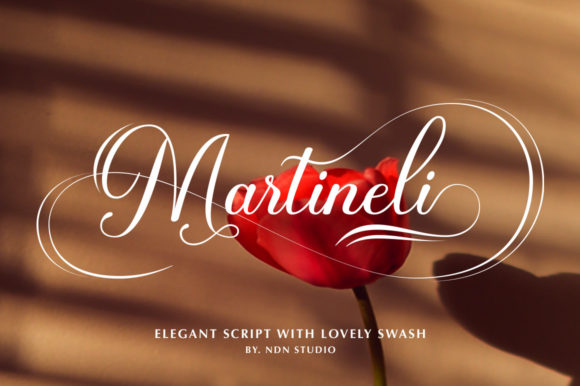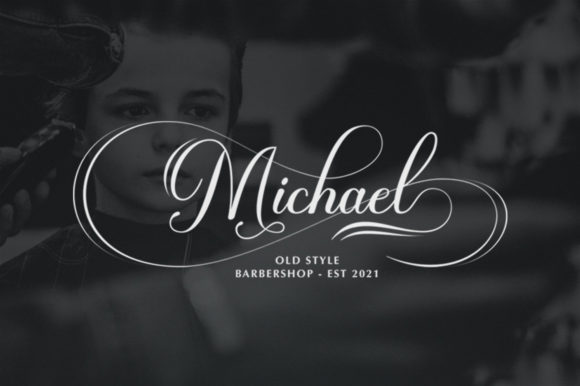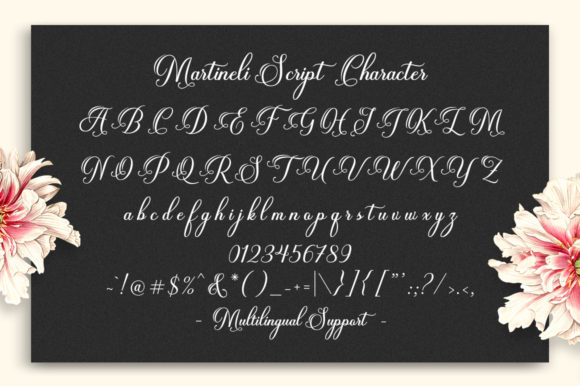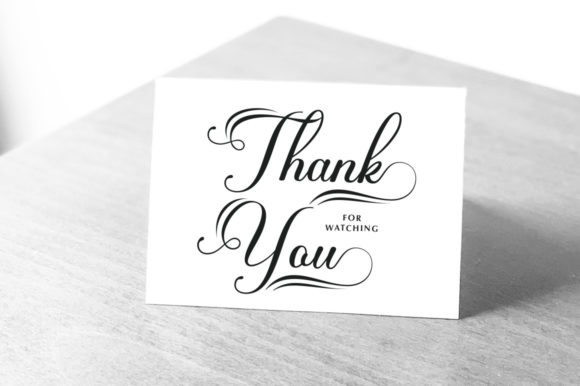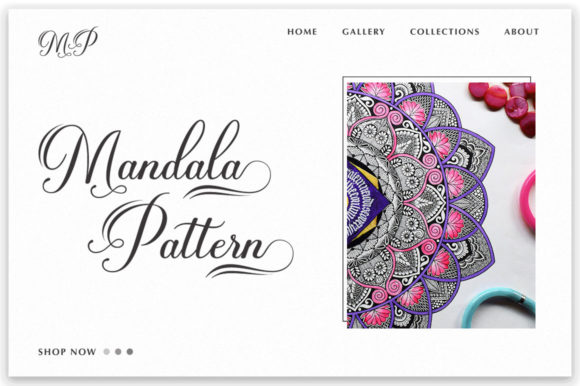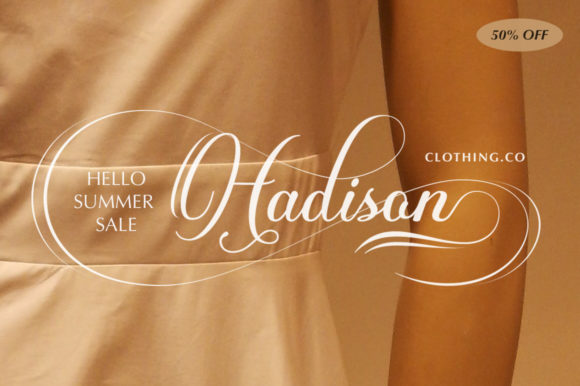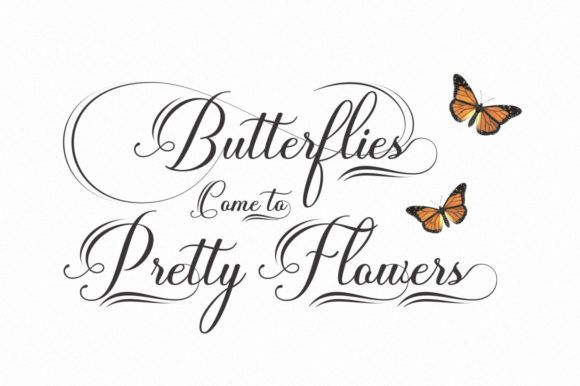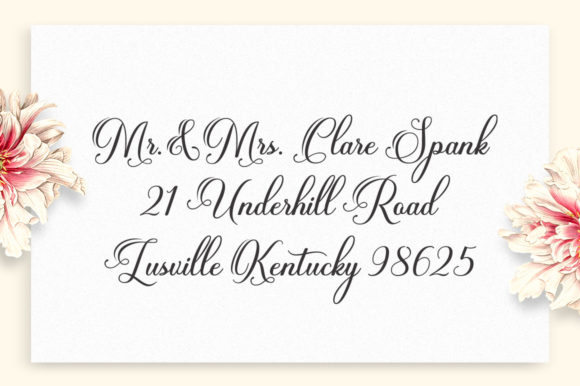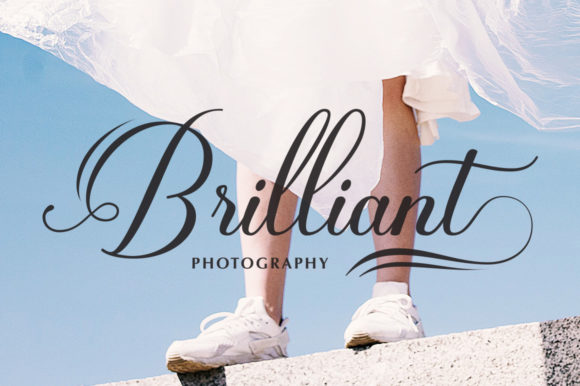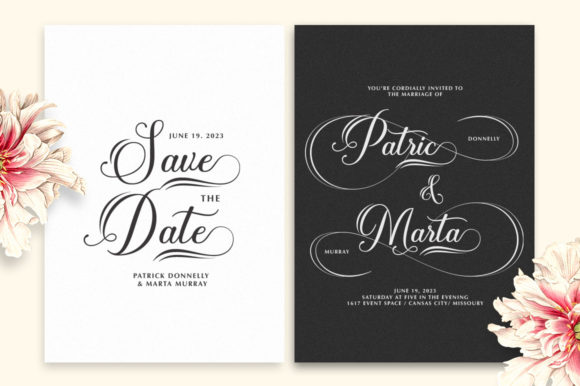
Martineli Script Font
About Martineli Script Font
Martineli Script is a lovely script font featuring charming, playful characters that seem to dance along the baseline. Add this font to your most creative ideas, and notice how it makes them stand out!